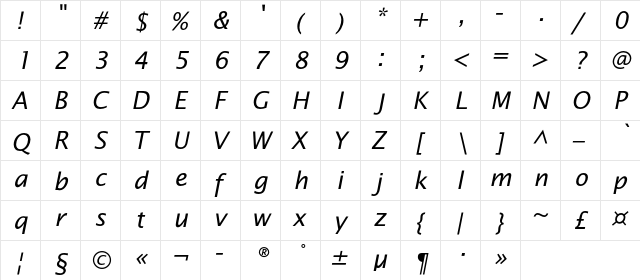
OfficeTypeSansC Italic
Design Context for OfficeTypeSansC Typeface
OfficeTypeSansC offers clean, dependable letterforms without strong stylistic allegiance, making it a practical choice for designers who need flexibility. The slanted form adds forward momentum and visual energy.
Pro Tip: Use OfficeTypeSansC for emphasis, pull quotes, and subheadings where its slanted energy can add rhythm to the layout.